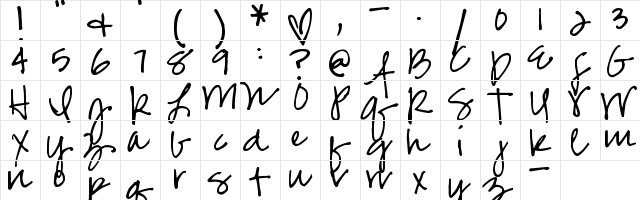
Pea Jenny Script Regular
Design Context for Pea Jenny Script Typeface
Pea Jenny Script brings a calligraphic fluidity to the page — its connecting strokes and expressive curves give it an unmistakably human quality.
Font Pairing: Combine Pea Jenny Script with a simple geometric sans for maximum contrast — the tension between flowing curves and clean structure is a classic typographic pairing.
Pro Tip: Use Pea Jenny Script for short runs of text — names, titles, or taglines. Extended body copy in script faces tires the eye quickly.